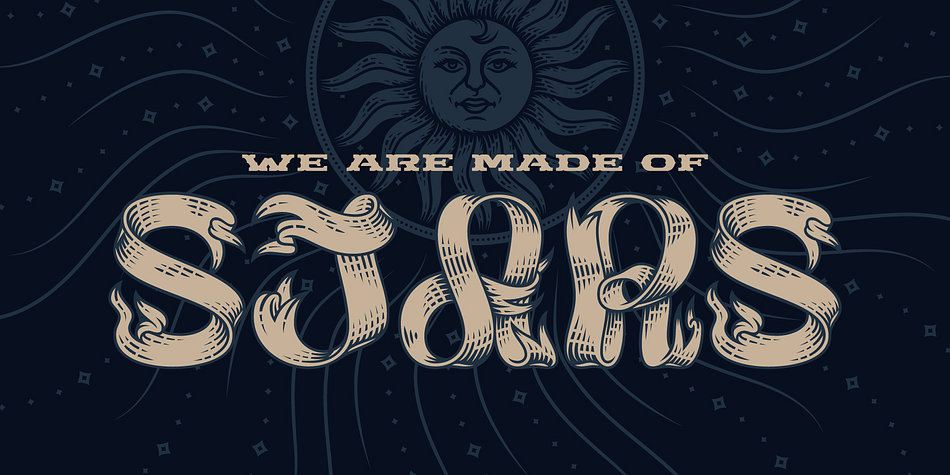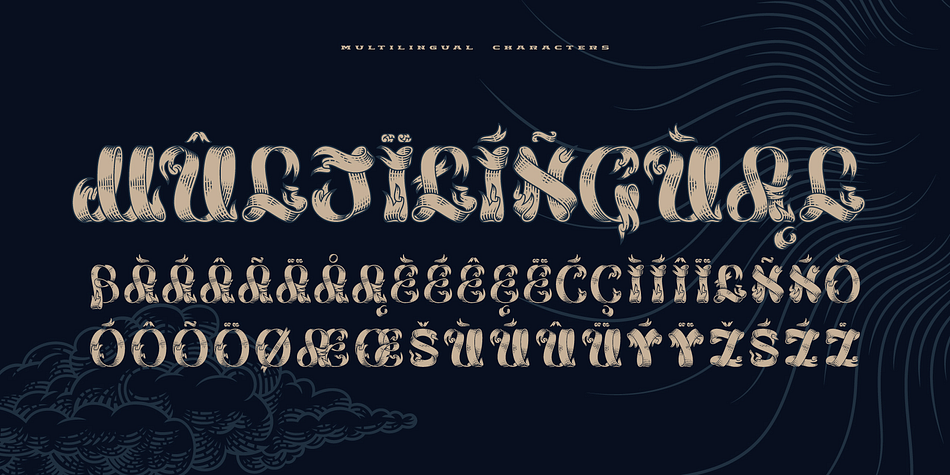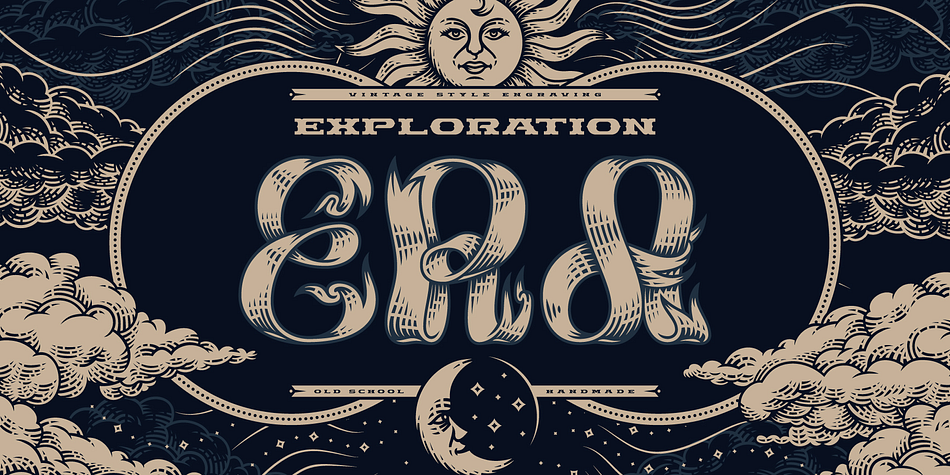
Exploration Era
Designed by Gleb Guralnyk, Exploration Era is an art deco, display and display sans font family. This typeface has three styles and was published by Gleb Guralnyk.
Hello! Presenting a vintage style font — Exploration Era. It’s a handmade typeface with characters made of tangled ribbons with engraving style shading. Exploration Era has three fonts (Regular, Outside & Inside) for more convenient recoloring. Also this font has multilingual support (check out a screenshot with available letters and signs).
Styles Art Deco, Display, Display Sans